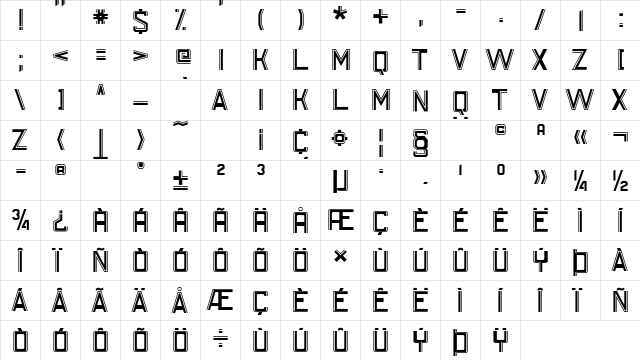
Design Context for SU-30SM Typeface
SU-30SM is a composed and adaptable typeface that performs quietly and consistently across a wide range of design contexts.